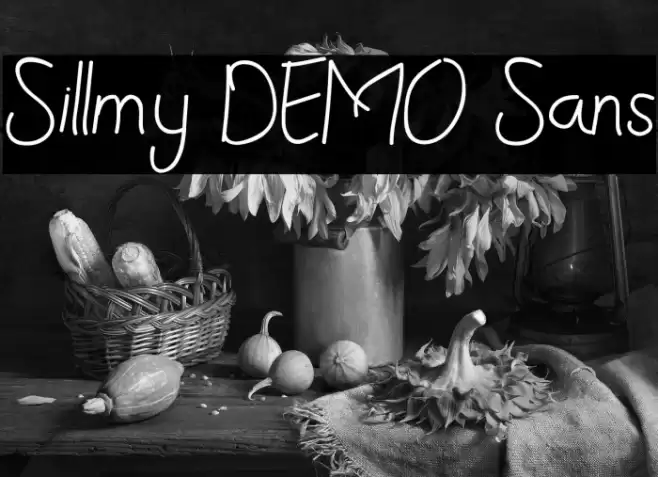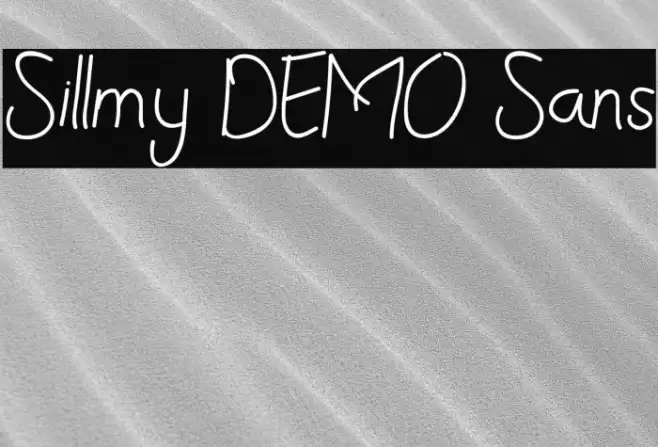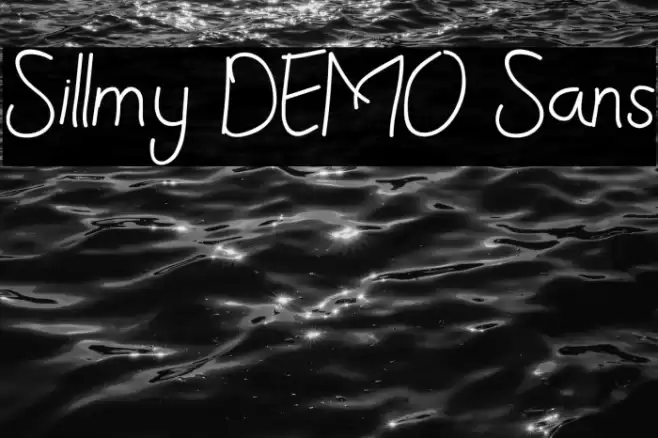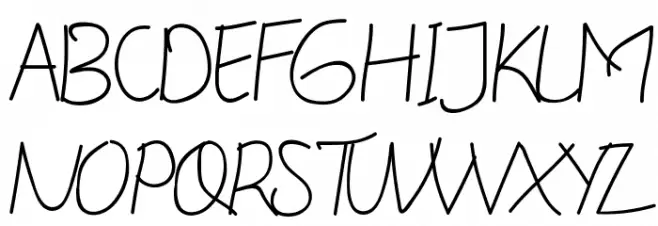
Sillmy DEMO Sans Font
Sillmy DEMO Sans Description
This font features a playful and informal style, characterized by its handwritten appearance. The letters are slightly slanted, giving it a dynamic and casual feel. The strokes are uneven, with varying thickness that adds to its organic and spontaneous look. The uppercase and lowercase letters maintain a consistent style, with rounded edges and a slight tilt. The numbers and special characters follow the same aesthetic, ensuring uniformity across all glyphs. This font is ideal for projects that require a personal touch, such as invitations, greeting cards, or creative branding.
A playful, handwritten-style font with a casual and dynamic appearance from Regular fonts.
- Proposed Projects: Ideal for invitations, greeting cards, creative branding, and informal communication.
- Overall Style: Casual, Playful
- Use Case: Headlines, Informal text, Creative projects